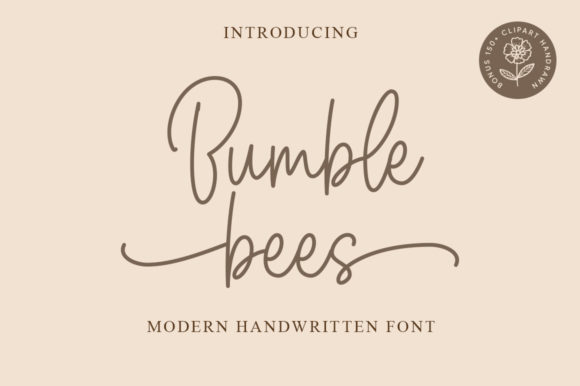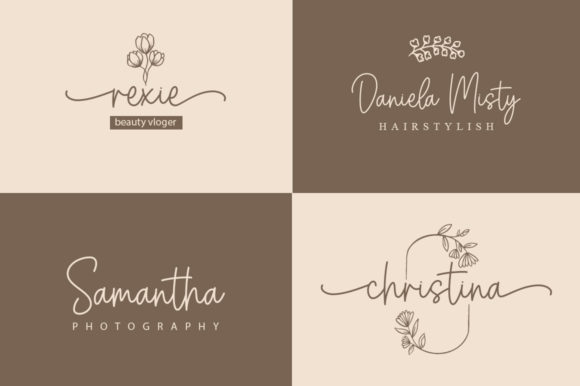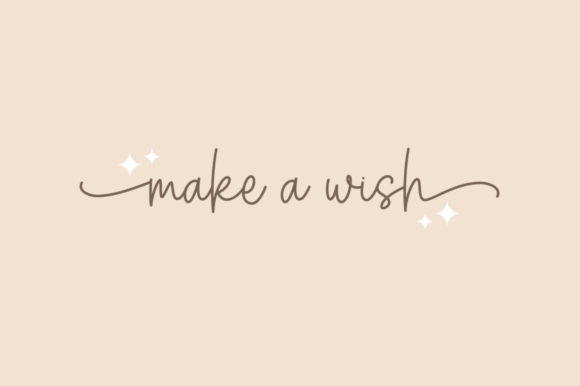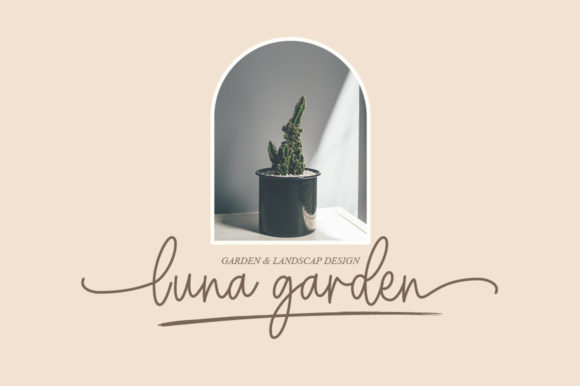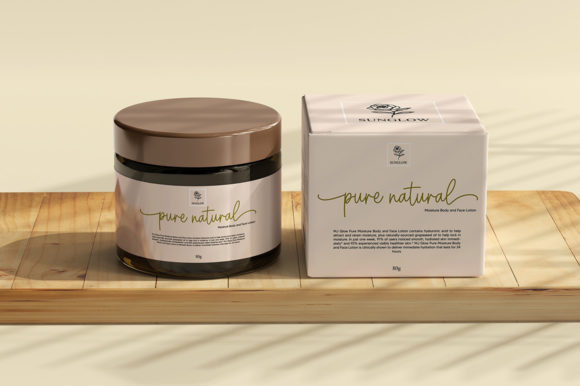
Bumble Bees Font
About Bumble Bees Font
Bumble bees is a dainty handwritten font, masterfully designed to become a true favorite. It maintains its classy calligraphic influences while feeling contemporary and fresh.